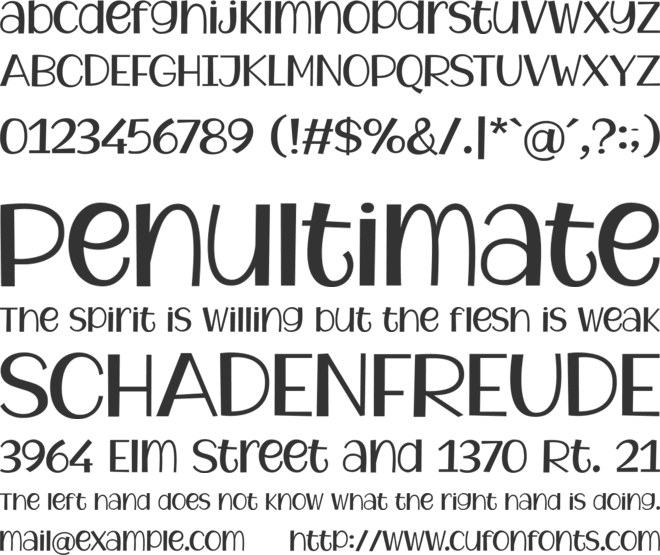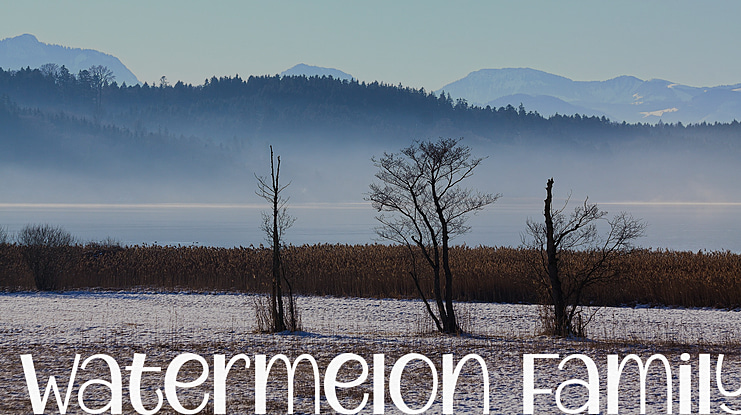
Watermelon Family Font Family
Darwinoo
Introducing a new cool comic font family.. This font was carefully crafted with clean node. Available in six weight variation, so you can enjoy design a page just with a font family.
Font Features:
- 6 weight font family - Good kerning even you mix uppercase-lowercase-uppercase - Complete Latin and Eastern Europe characters.